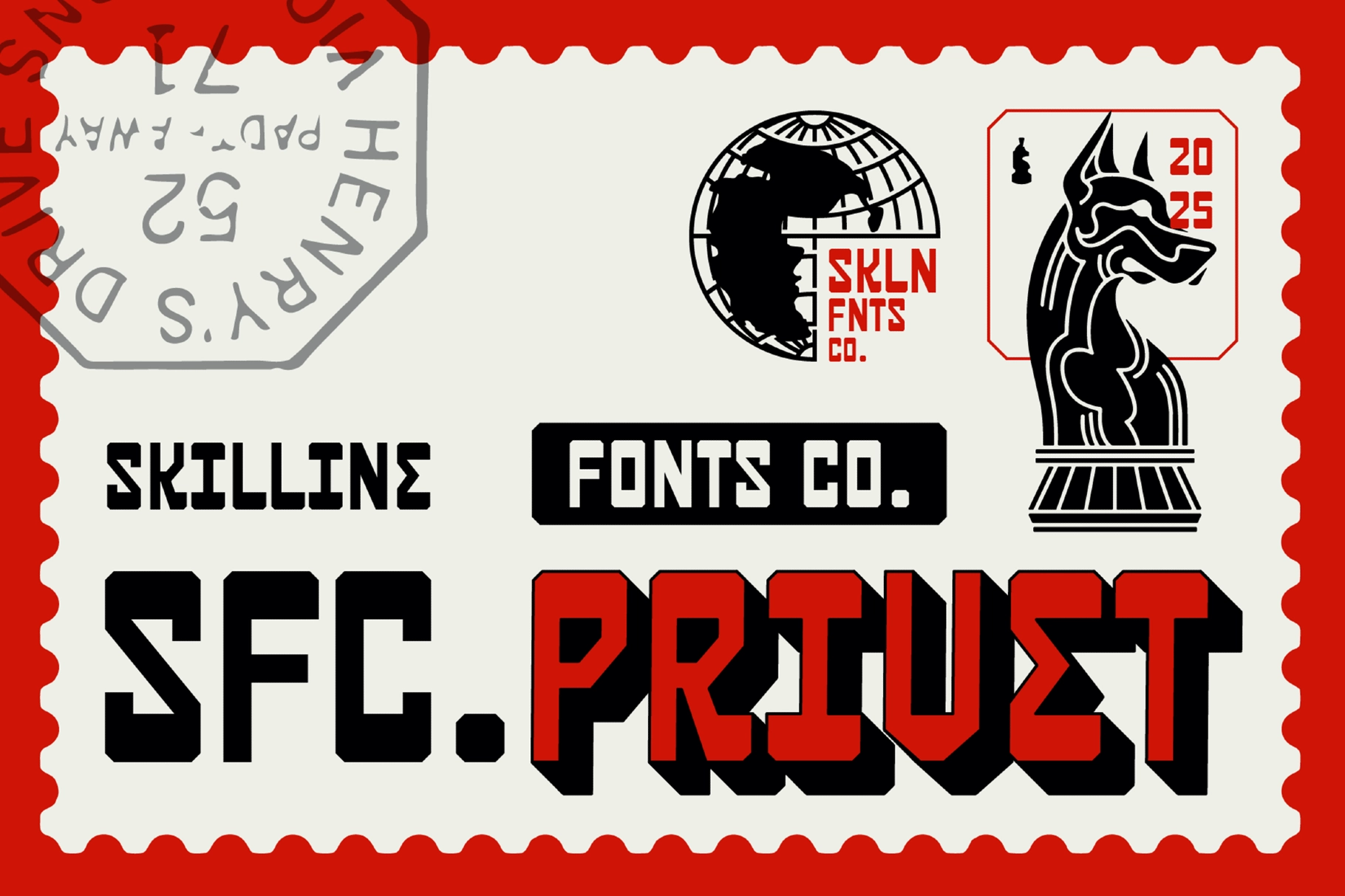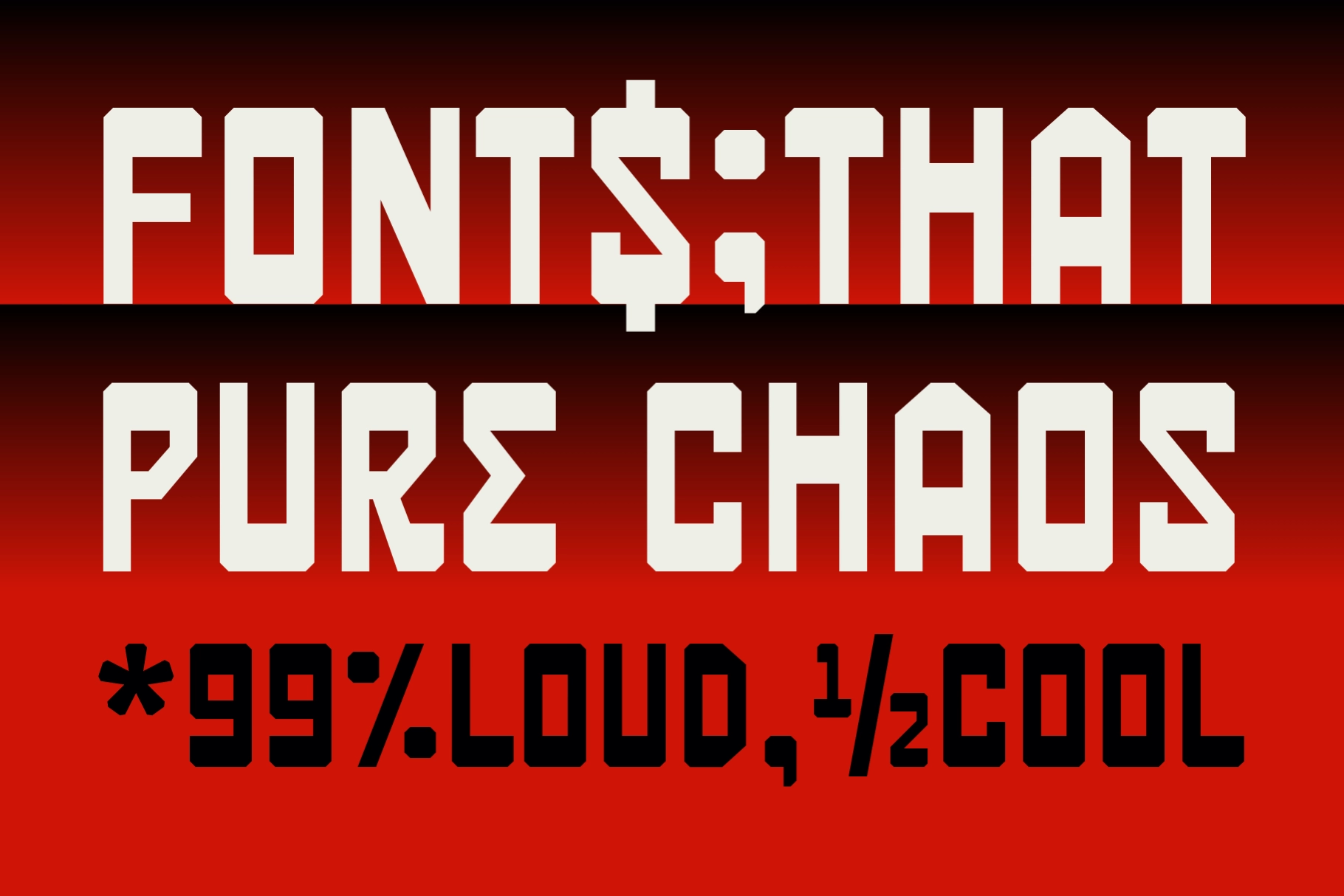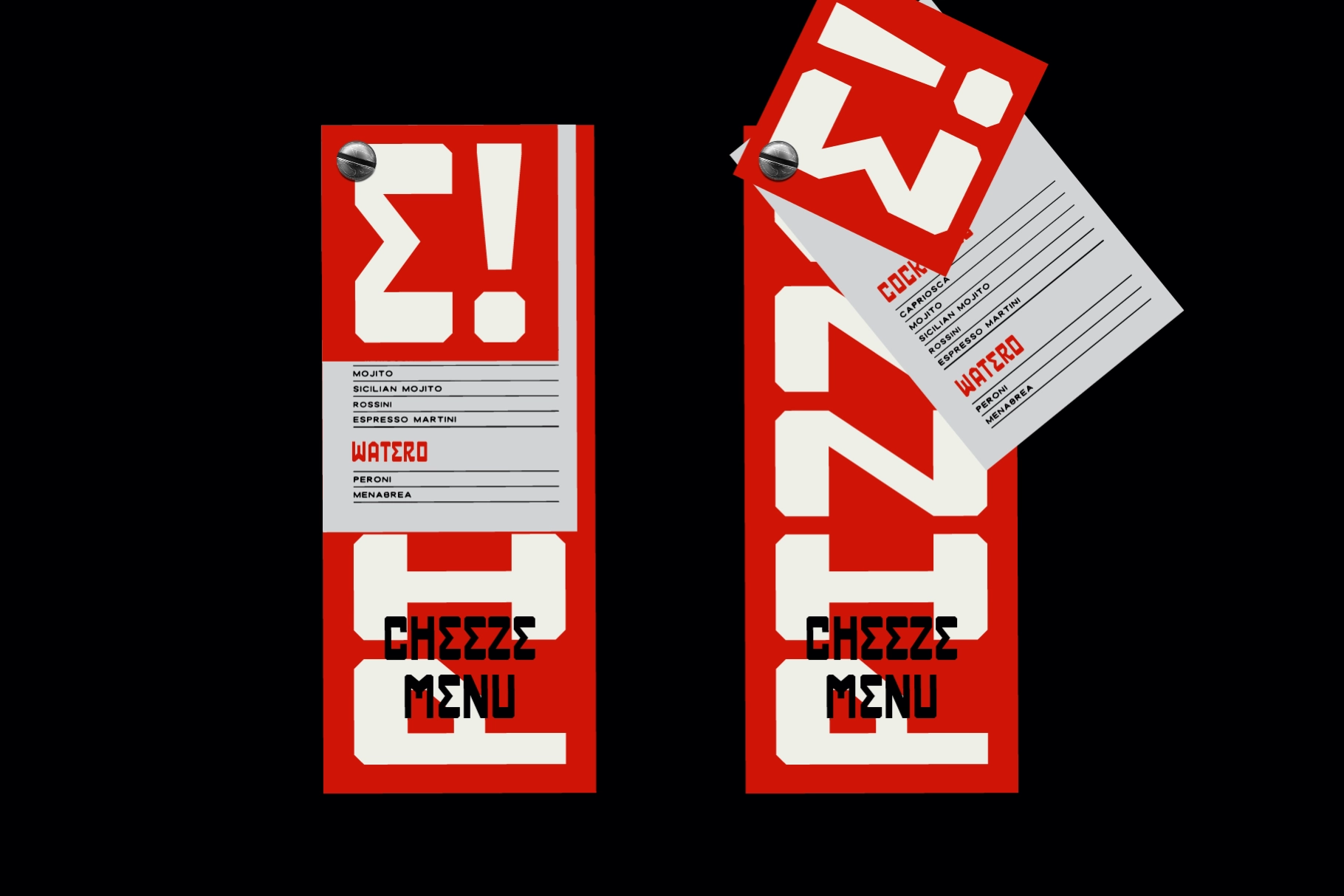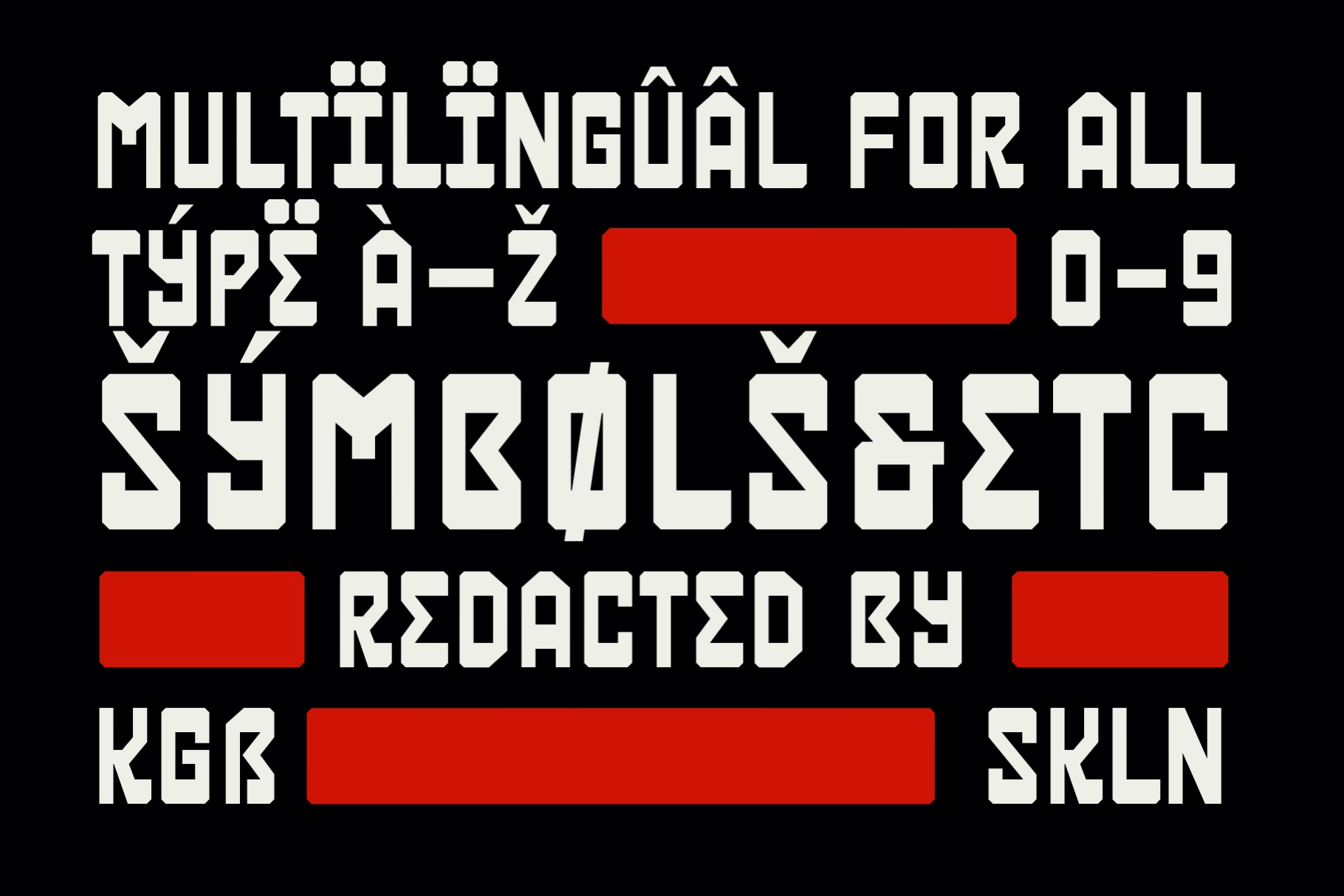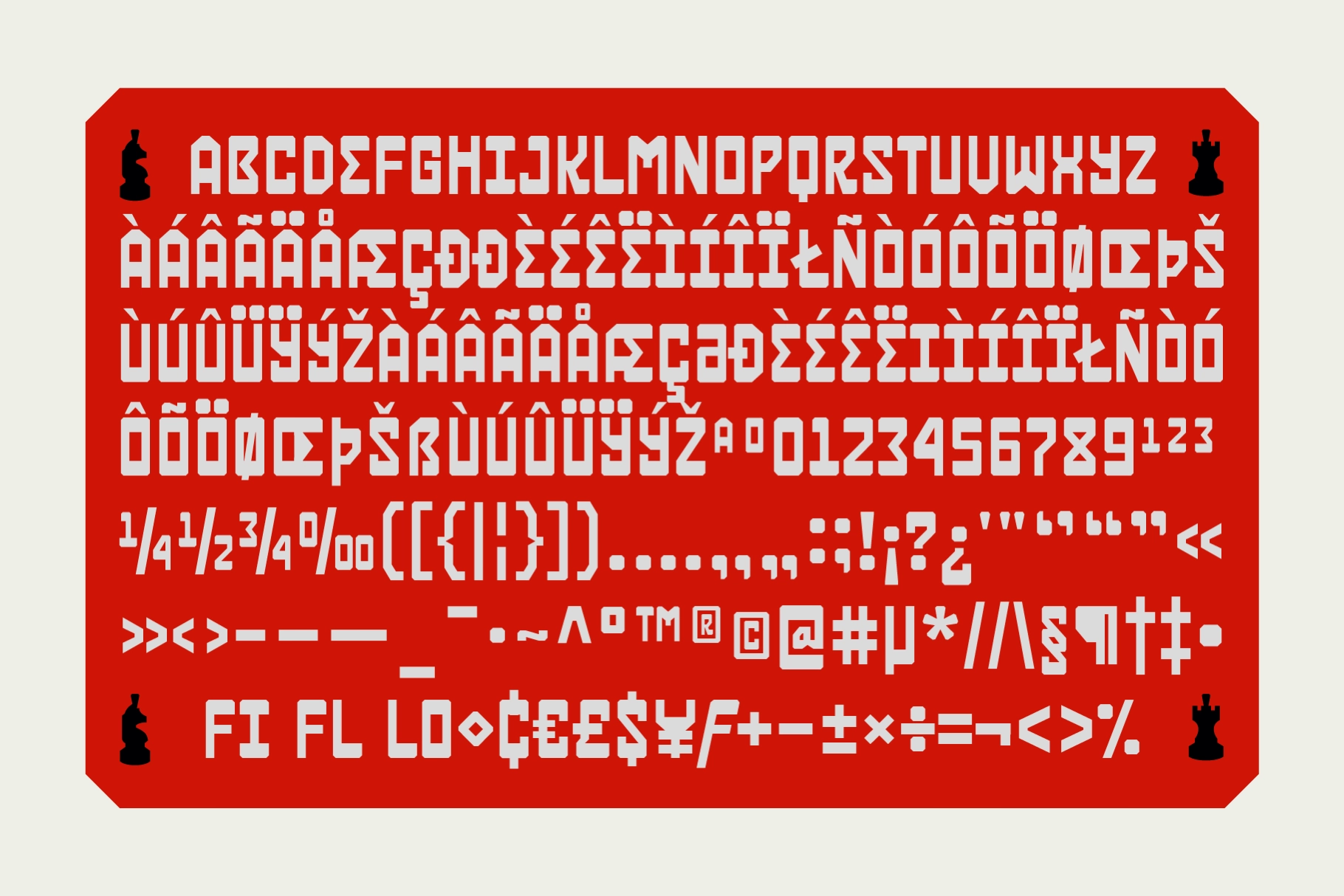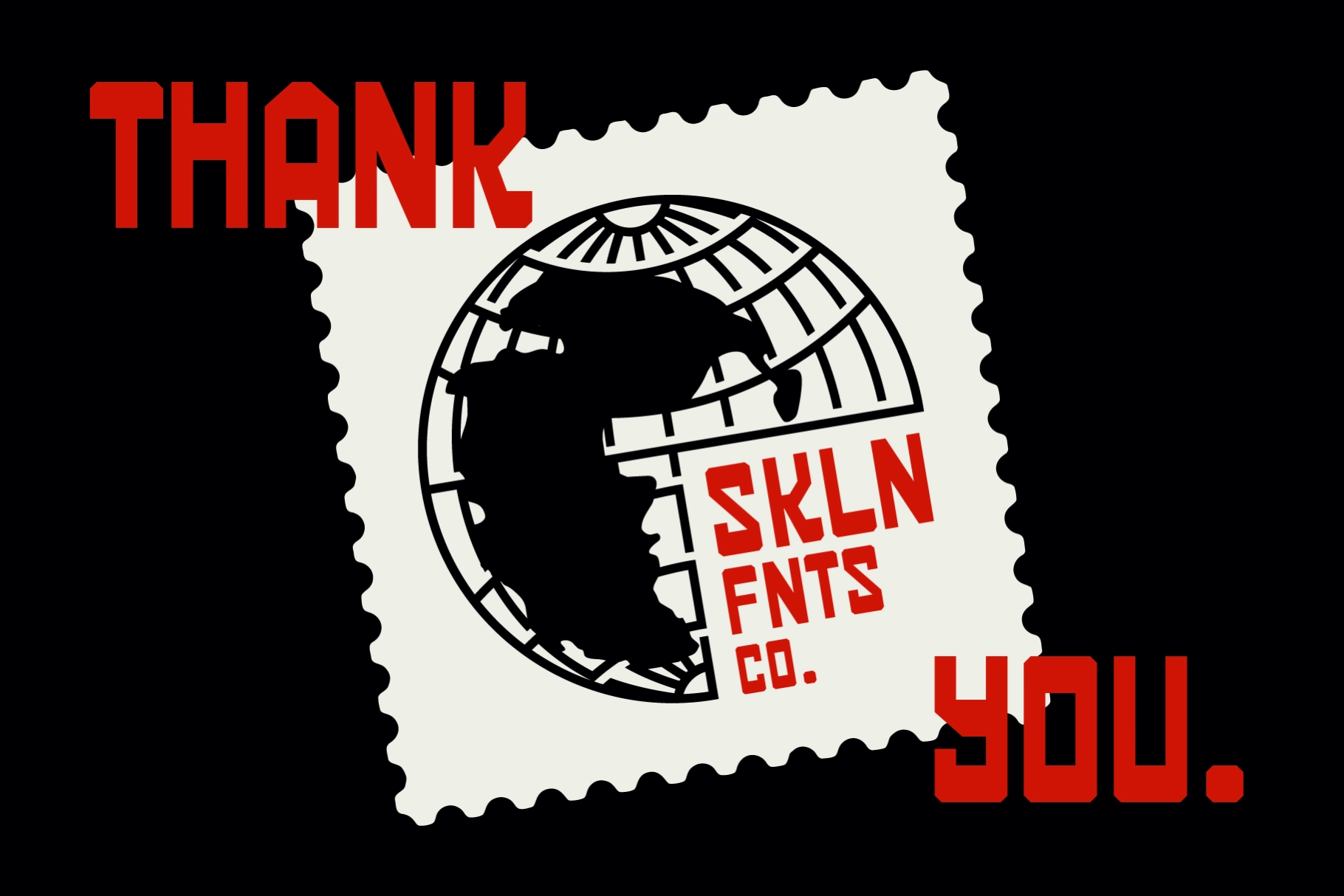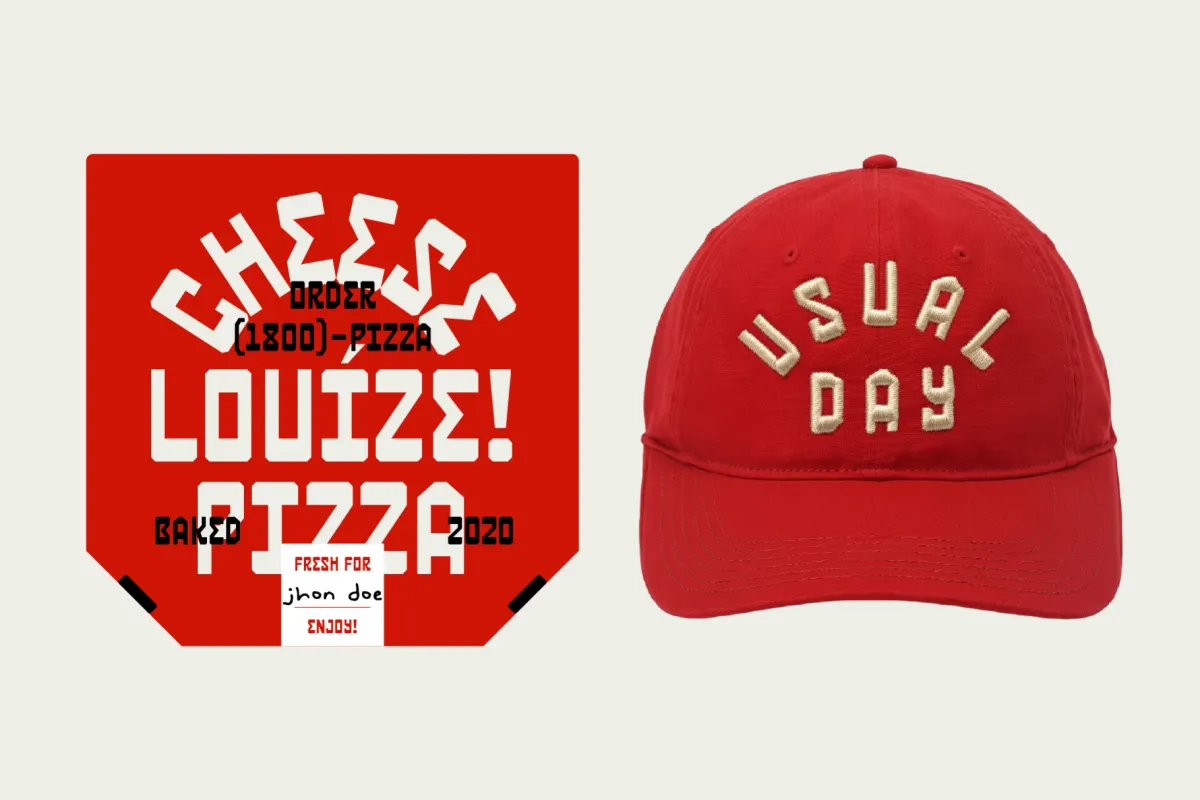
SFC Privet - Bold Geometric Retro Font
SFC Privet
SFC Privet – Bold Geometric Retro Font is a powerful display typeface built on sharp geometry and industrial-inspired forms. Its angular construction, compact spacing, and heavy weight create a striking visual rhythm that feels both retro and contemporary. Designed to stand out, it brings a bold voice to branding, headlines, and graphic-driven layouts.
With its structured letterforms and distinctive personality, SFC Privet works perfectly across high-impact applications—from sports and streetwear to packaging and poster design. The font balances rigid precision with expressive character, making it versatile while maintaining a strong stylistic identity.